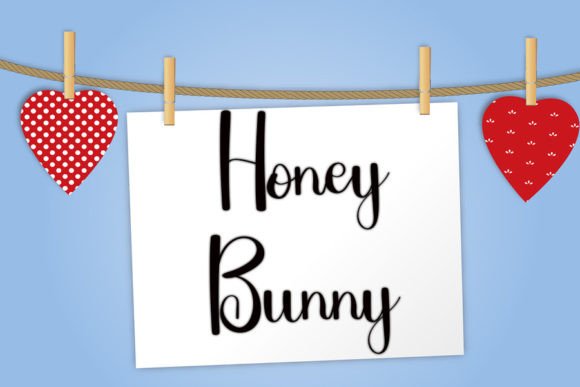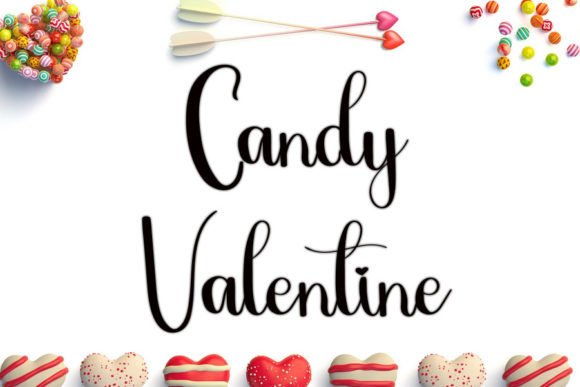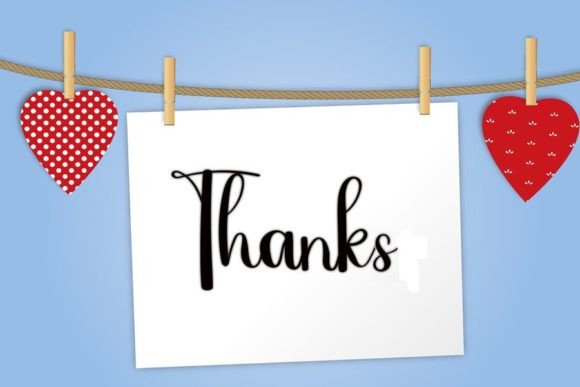
Introducing Birthday Valentine Font: The Perfect Choice for Designers and Crafters
Are you looking for a font that can add a touch of elegance and whimsy to your designs? Look no further than the Birthday Valentine Font. This lovely and timeless handwritten font is perfect for creating eye-catching logos, branding, and quotes that will make your design come alive.
What Makes Birthday Valentine Font So Special?
The Birthday Valentine Font is a unique and beautiful font that is sure to capture the hearts of designers and crafters alike. Every letter has a unique and beautiful touch, which makes it perfect for creating stunning designs. Whether you’re looking to create a logo, branding materials, or quotes, this font is the perfect choice.
Key Features of Birthday Valentine Font
• Handwritten Style: The Birthday Valentine Font has a beautiful handwritten style that gives it a personal and unique touch.
• Unique Lettering: Every letter in the font has a unique and beautiful touch, which makes it perfect for creating eye-catching designs.
• Elegant and Whimsical: The font has an elegant and whimsical feel to it, making it perfect for creating designs that are both sophisticated and playful.
• Versatile: The Birthday Valentine Font is versatile and can be used for a variety of design projects, including logos, branding, quotes, and more.
Why Designers and Crafters Love Birthday Valentine Font
Designers and crafters love the Birthday Valentine Font for its unique and beautiful style. It’s perfect for creating designs that are both elegant and playful. The font is also very versatile, making it perfect for a variety of design projects. Whether you’re creating logos, branding materials, or quotes, the Birthday Valentine Font is sure to make your design stand out.
How to Use Birthday Valentine Font in Your Designs
Using the Birthday Valentine Font in your designs is easy. Here are a few tips to get you started:
• Use it for Logos: The Birthday Valentine Font is perfect for creating eye-catching logos that are both elegant and playful.
• Use it for Branding: The font is also perfect for creating branding materials, such as business cards, brochures, and more.
• Use it for Quotes: The Birthday Valentine Font is perfect for creating beautiful quotes that are both inspiring and elegant.
• Experiment with Colors and Textures: Don’t be afraid to experiment with different colors and textures to make your design stand out.
Tips and Tricks for Getting the Most Out of Birthday Valentine Font
Here are a few tips and tricks for getting the most out of the Birthday Valentine Font:
• Pair it with Other Fonts: The Birthday Valentine Font pairs well with other fonts, so don’t be afraid to experiment with different font combinations.
• Use it in Combination with Images: The font looks great in combination with images, so try using it with photos or illustrations to create a stunning design.
• Make it Your Own: Don’t be afraid to make the font your own by adding your own personal touch to it.
Font Name Birthday Valentine Font
Author ABBAsalam
The Birthday Valentine Font is a beautiful and versatile font that is perfect for designers and crafters. Its unique and beautiful style makes it perfect for creating eye-catching logos, branding, and quotes. Whether you’re a professional designer or a crafter, the Birthday Valentine Font is sure to make your design come alive.